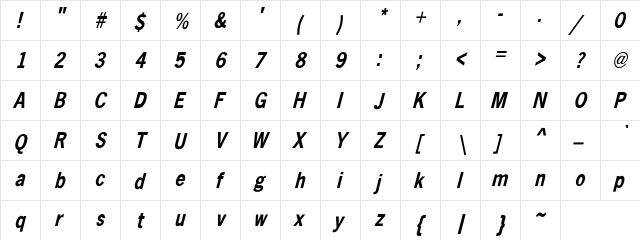
Abell Condensed Bold Oblique Bold Font Preview
Design Context for Abell Condensed Bold Oblique Typeface
Abell Condensed Bold Oblique takes a measured approach to typography — its balanced proportions and neutral character make it a reliable workhorse for both digital and print work. Its italic angle brings a sense of urgency and motion to the letterforms. Its bold stroke weight gives it real presence on the page. The condensed width makes it efficient for tight spaces without sacrificing legibility.
Pro Tip: Use Abell Condensed Bold Oblique for emphasis, pull quotes, and subheadings where its slanted energy can add rhythm to the layout.